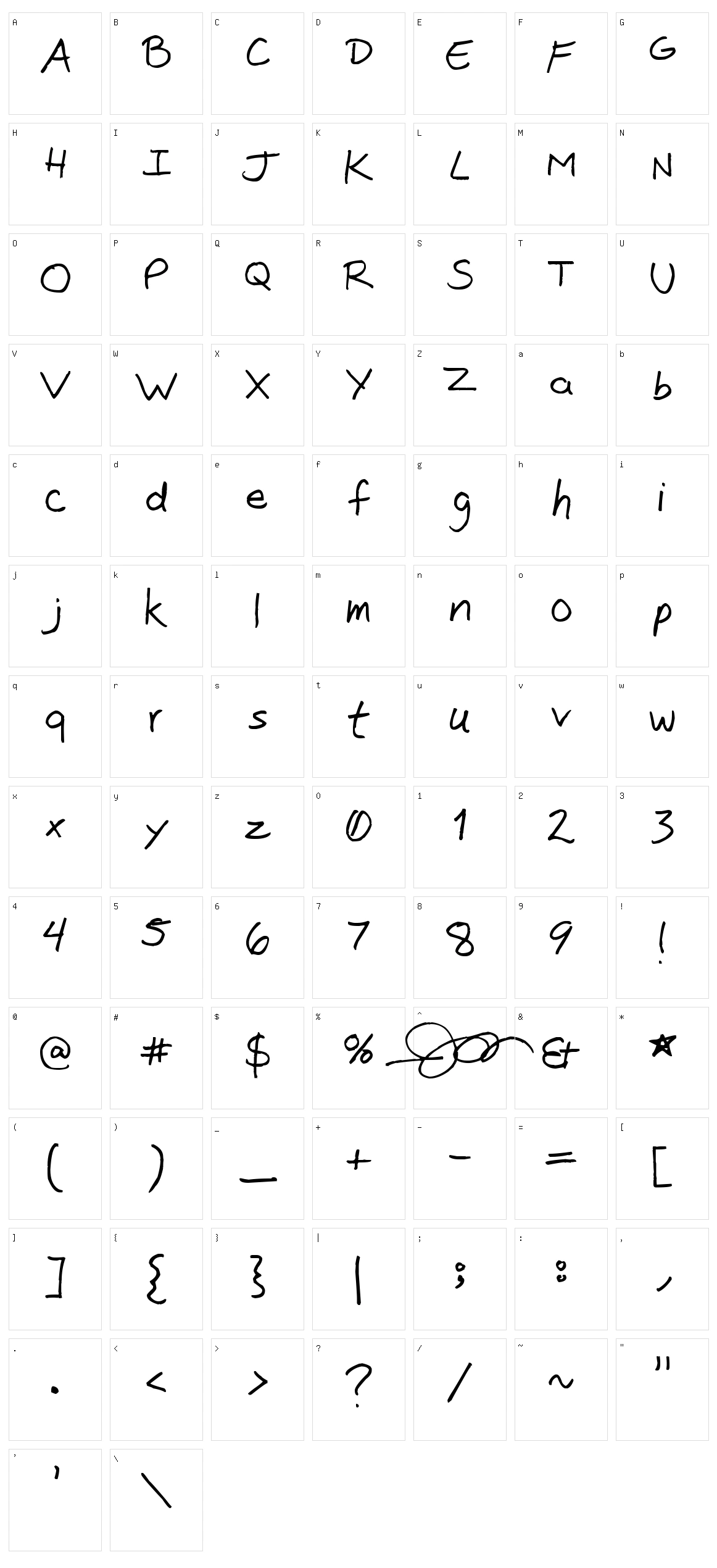
The free font Jon Sans is carefully designed by Jonathan Richard, showcasing a thoughtful balance of creativity and usability and falls under the Script font style. When you download the ZIP file, it contains only 26.81 KB of font files, making it lightweight and quick to download. Please review the license details below to understand permitted usage and distribution rights. If license information is not available, we recommend using this font for personal projects only or contacting the author directly for commercial usage permissions.